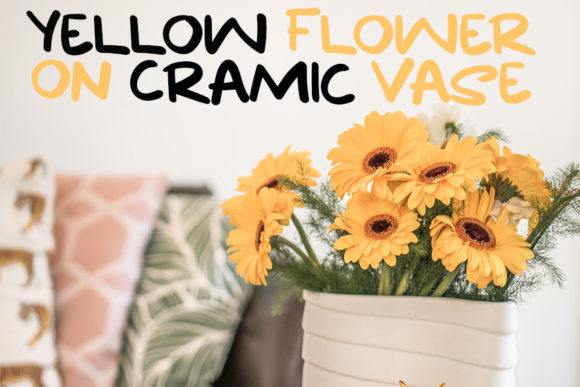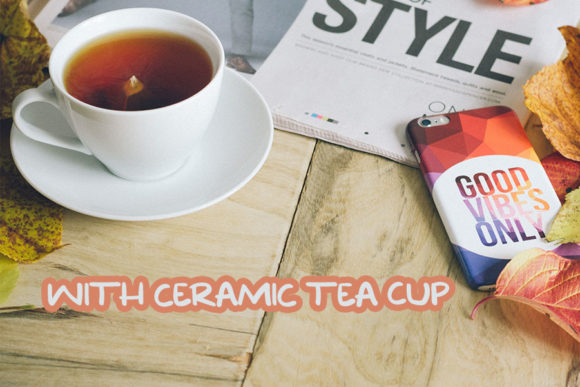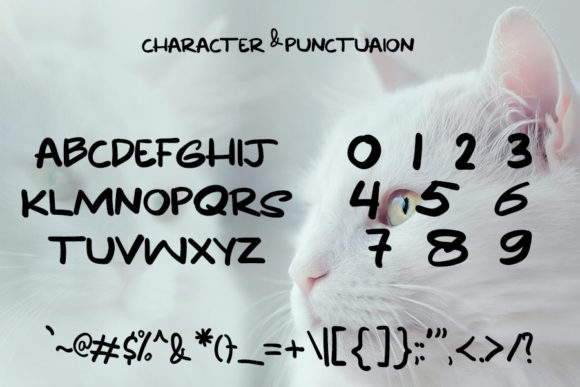
Introduction to Home with You Font
As designers, we’ve all been there – staring at a blank page, trying to bring a creative project to life. But sometimes, all it takes is the right font to spark inspiration. That’s where Home with You Font comes in – a friendly and natural handwritten font that’s perfect for adding a touch of warmth to your designs.
With its high-quality, free download, Home with You Font is a valuable resource for designers looking to add a personal touch to their work. Whether you’re creating cartoon-related designs, children’s games, or quotes, this font is a great choice. Its transparent background makes it easy to layer over other design elements, and its natural feel is perfect for creating a sense of home and comfort.
Key Features of Home with You Font
- High-quality, professional font design ideal for creative projects
- Transparent background and clear, readable text for easy design integration
- Perfect for home decor, interior design, and lifestyle-related creative projects
- Unique, hand-drawn style with a personal touch, setting it apart from other free fonts
Honest Review: Home with You Font
I recently stumbled upon the Home with You Font and was excited to give it a try. As a designer, I’m always on the lookout for high-quality design resources to elevate my creative projects.
What works well with this font is its friendly and approachable feel, making it perfect for projects that require a personal touch. The font is also incredibly versatile and can be used for a variety of purposes, from wedding invitations to home decor design.
- ✨ High-quality design: The Home with You Font is a beautifully crafted design that exudes warmth and coziness.
- ✨ Transparent background: The font’s transparent background allows for seamless integration with other design elements.
However, there are a few limitations to consider: ⚠️ the font may not be suitable for formal or professional projects, and ⚠️ it’s not as extensive as some other font collections.
Overall, I’m impressed with the Home with You Font and would definitely recommend it to designers looking for a high-quality, free design resource to add some warmth to their creative projects.
The Home with You Font is commonly used in wedding invitations, birthday cards, and other special occasion designs. Its elegant and sophisticated look makes it perfect for adding a touch of class to your creative project. You can also use it to create custom logos, branding materials, and marketing materials.
To get the most out of the Home with You Font, use it in combination with other high-quality design elements. Experiment with different font sizes, colors, and arrangements to create a unique and eye-catching design. Additionally, use the font’s transparent background to create a seamless and professional look.